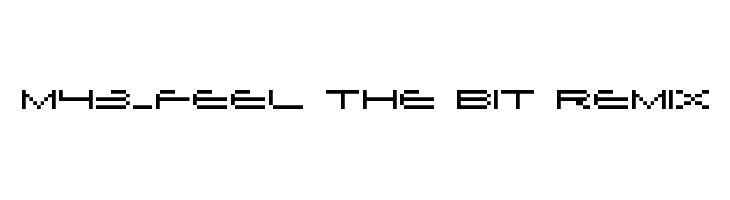
A pixelated, retro-style font with a geometric, grid-like design.
A bold, geometric font with a digital, pixelated style.
A pixelated, blocky font with a digital, retro aesthetic.
A bold, pixelated font with a retro digital aesthetic.
A bold, geometric font with a pixelated, retro gaming aesthetic.
A bold, geometric font with a retro-futuristic, pixelated style.
A modern dotted font with a digital, structured aesthetic.
A bold, pixelated font with a retro digital aesthetic.
A pixelated, grid-like font with a retro digital aesthetic.